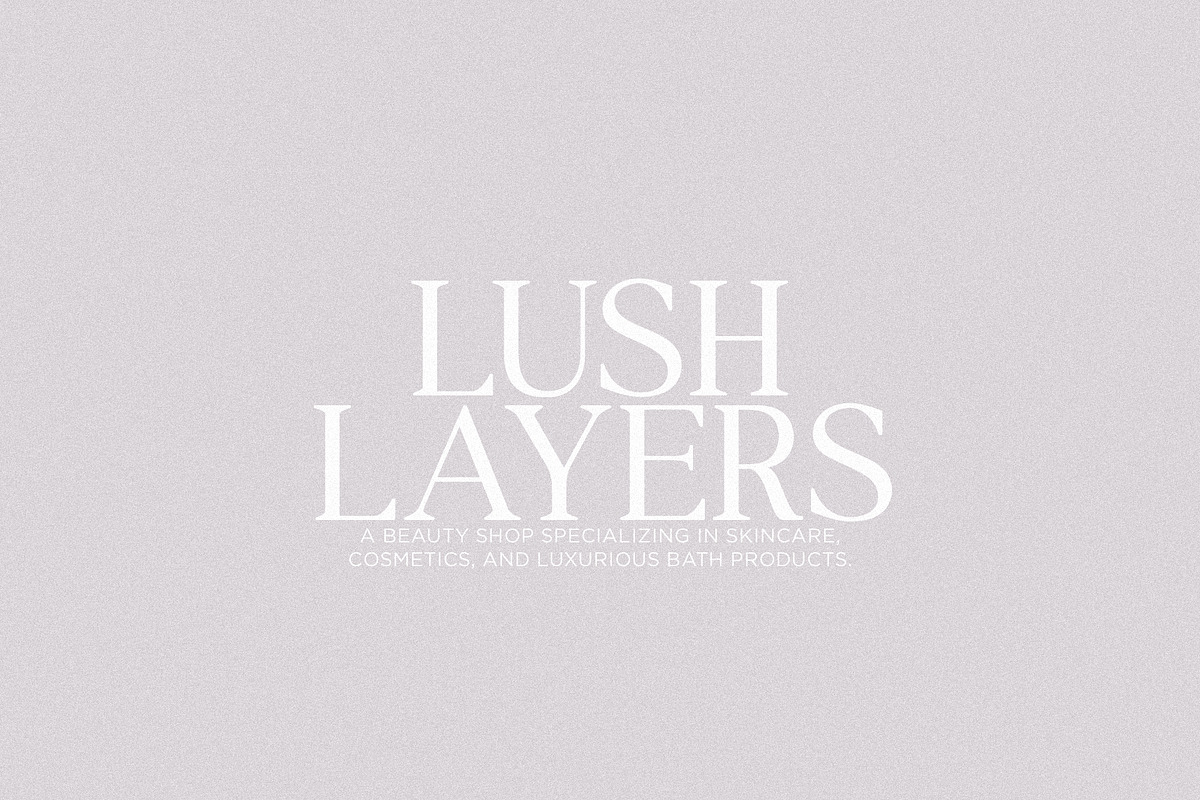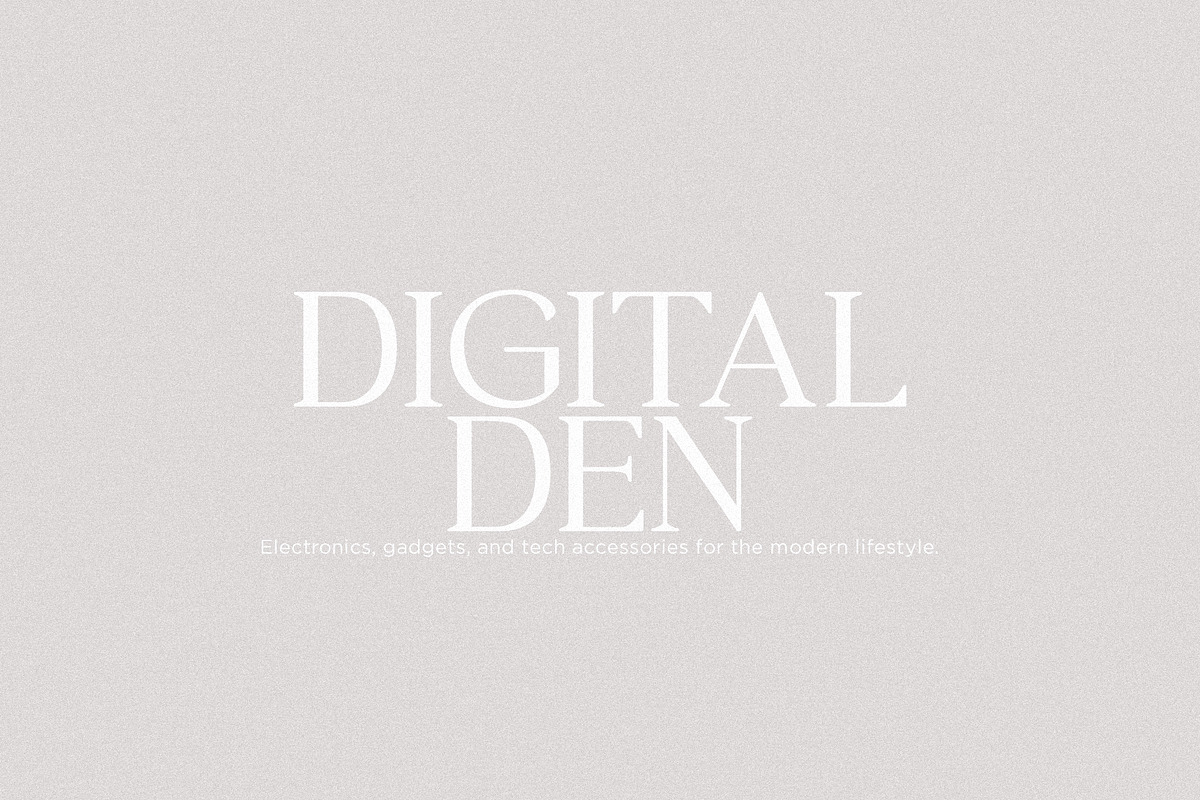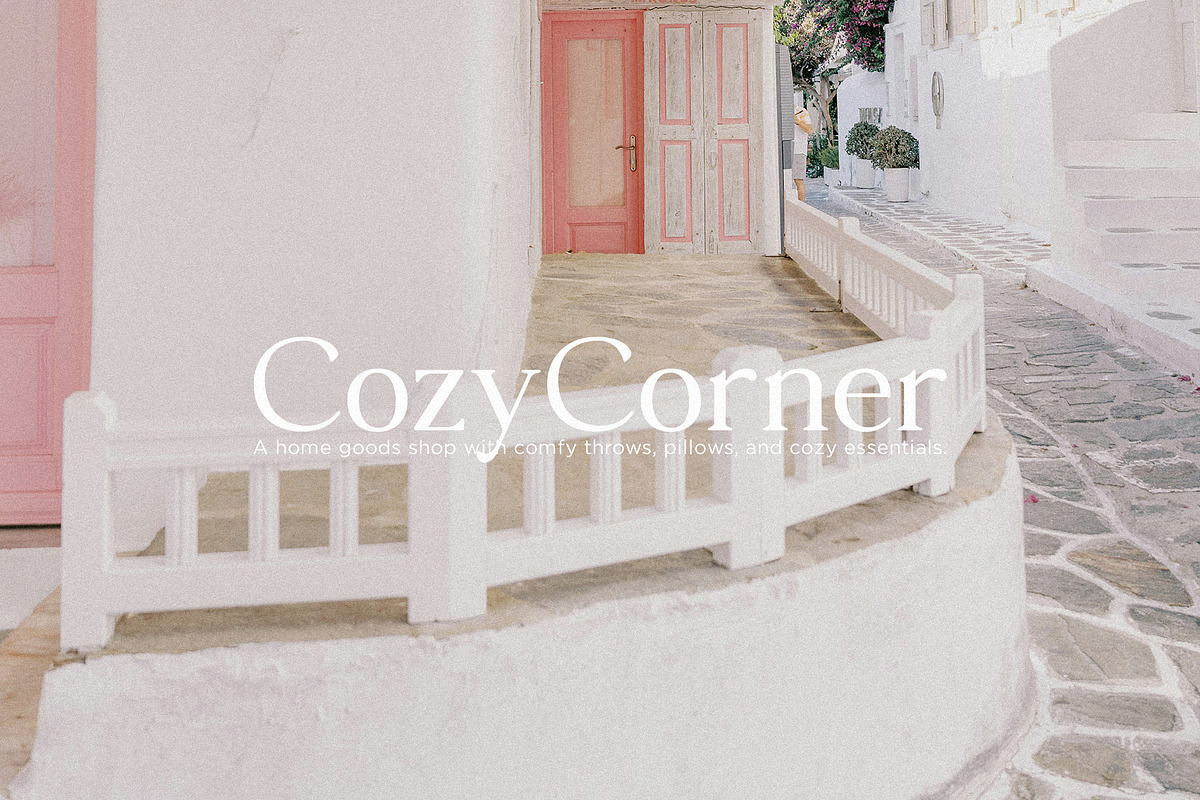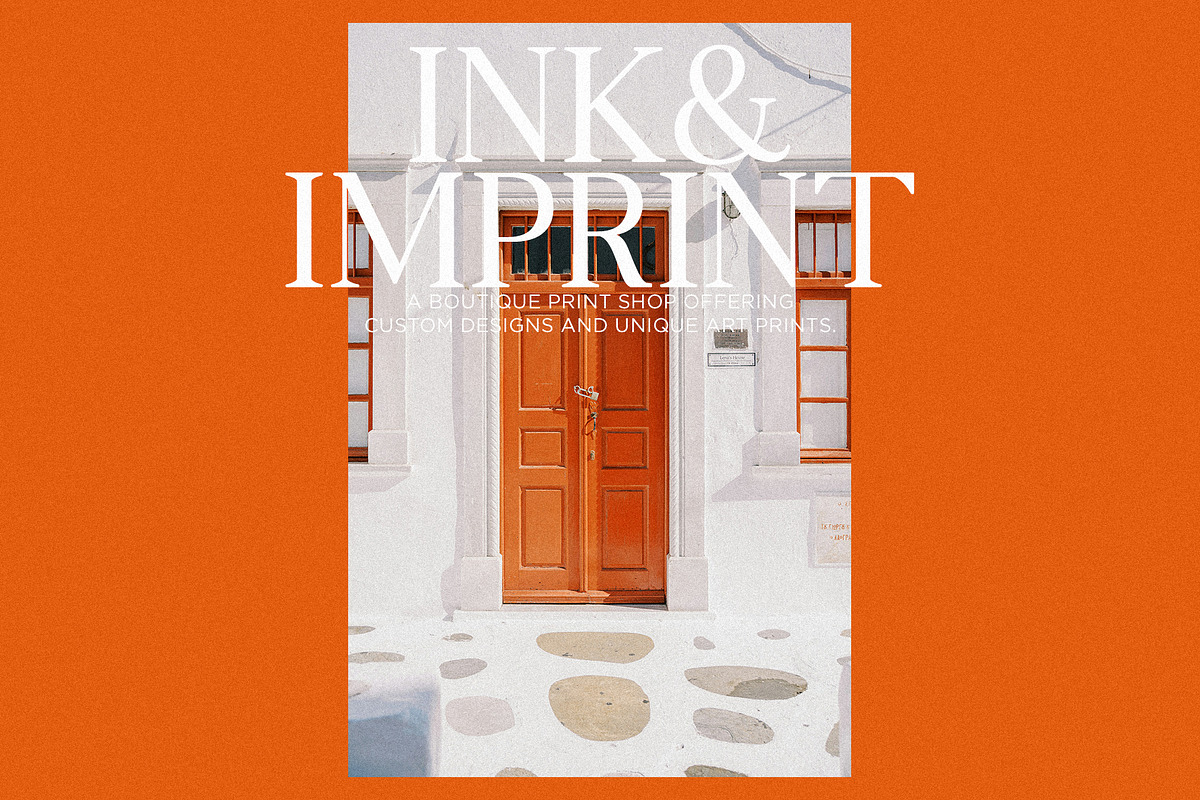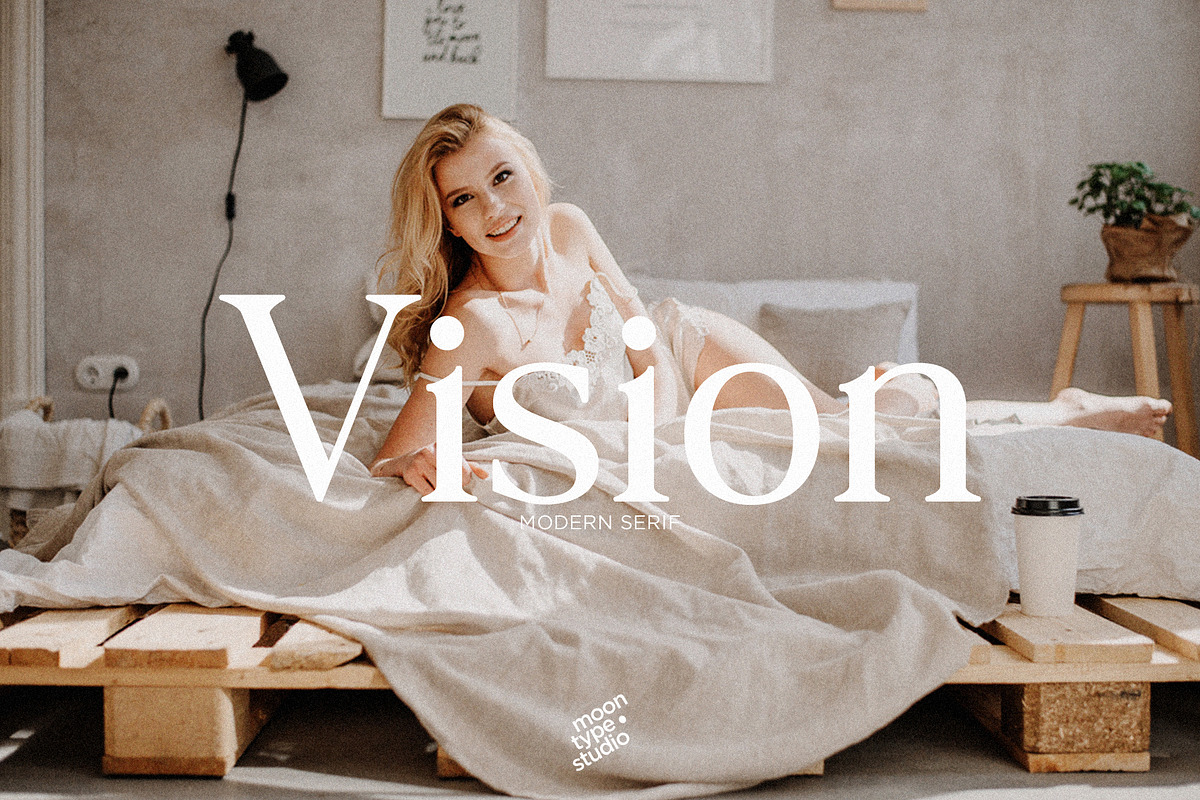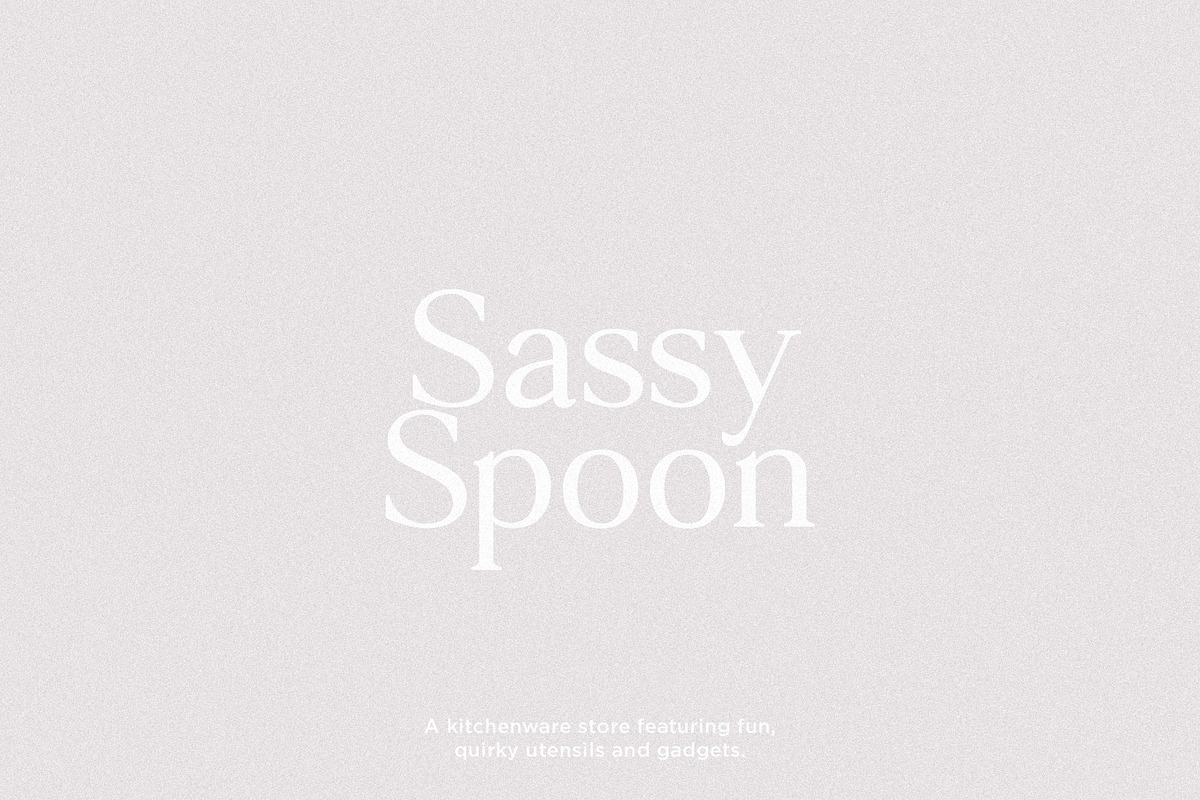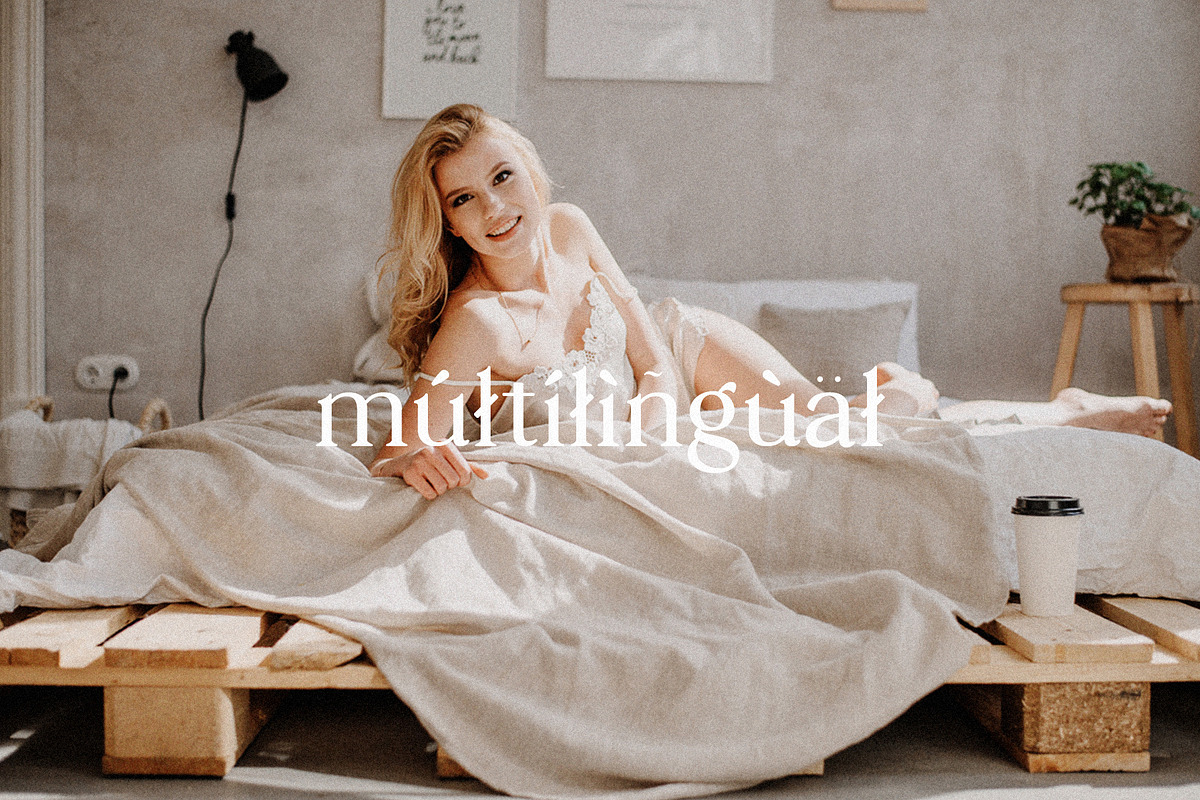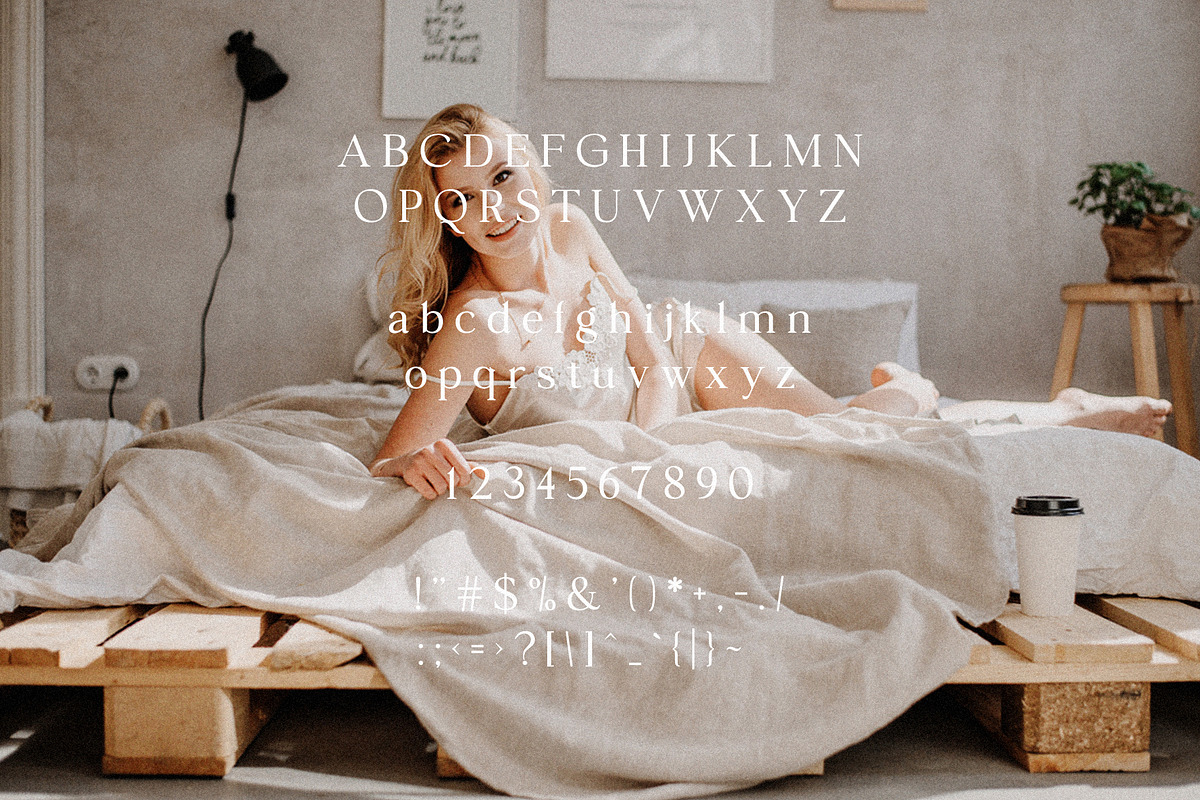
Vision - Modern Serif
Vision - Modern Serif: A sophisticated typeface that effortlessly blends timeless charm with contemporary style. Its refined, classic design makes it ideal for projects that require a touch of elegance, sophistication, and readability. Perfect for branding, editorial work, and high-end designs where every detail matters.